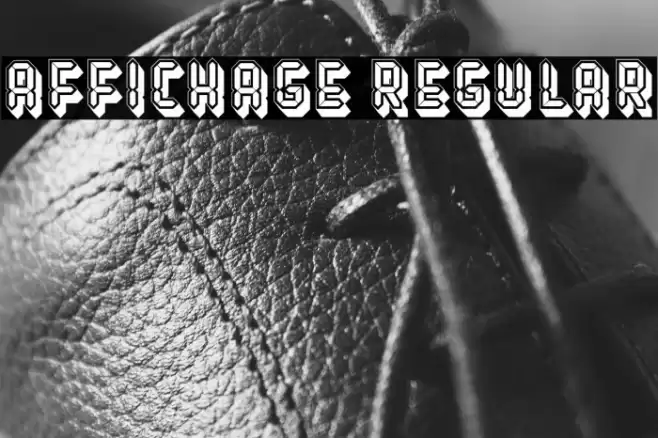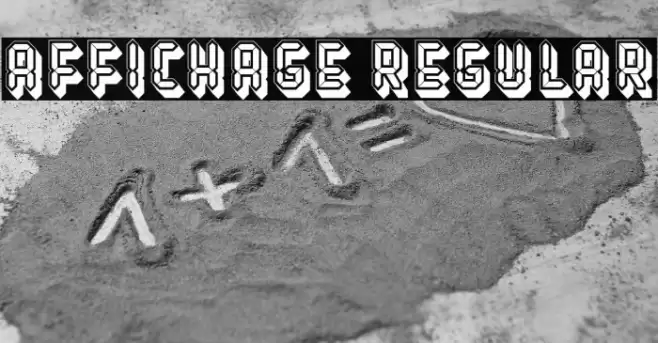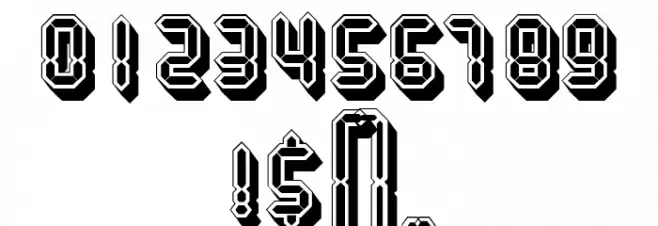
Affichage Regular Font
Affichage Regular Description
This font features a bold, three-dimensional design with a distinct shadow effect that gives it a striking, impactful appearance. The characters are constructed with geometric precision, incorporating angular lines and sharp edges. The shadowing adds depth, making each letter pop off the page. This style is reminiscent of retro or vintage signage, yet it maintains a modern edge through its clean lines and structured form. The uppercase and lowercase letters share a consistent style, with numerals and special characters following suit, ensuring a cohesive look across all text elements.
A bold, three-dimensional font with geometric precision and shadow effects from Uncategorized fonts.
- Proposed Projects: Ideal for poster designs, retro-themed branding, video game graphics, and eye-catching headlines.
- Overall Style: Retro, Modern